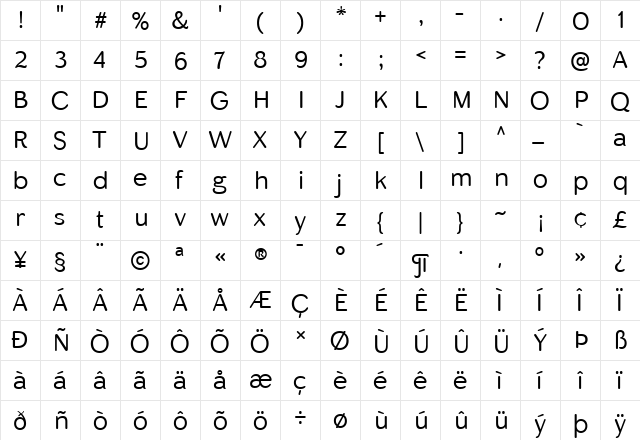
Skirt Light
Design Context for Skirt Typeface
Skirt takes a measured approach to typography — its balanced proportions and neutral character make it a reliable workhorse for both digital and print work. Its slender proportions lend an understated elegance to any composition.
Pro Tip: Use Skirt in both headline and body roles to test its range before committing to a single application.